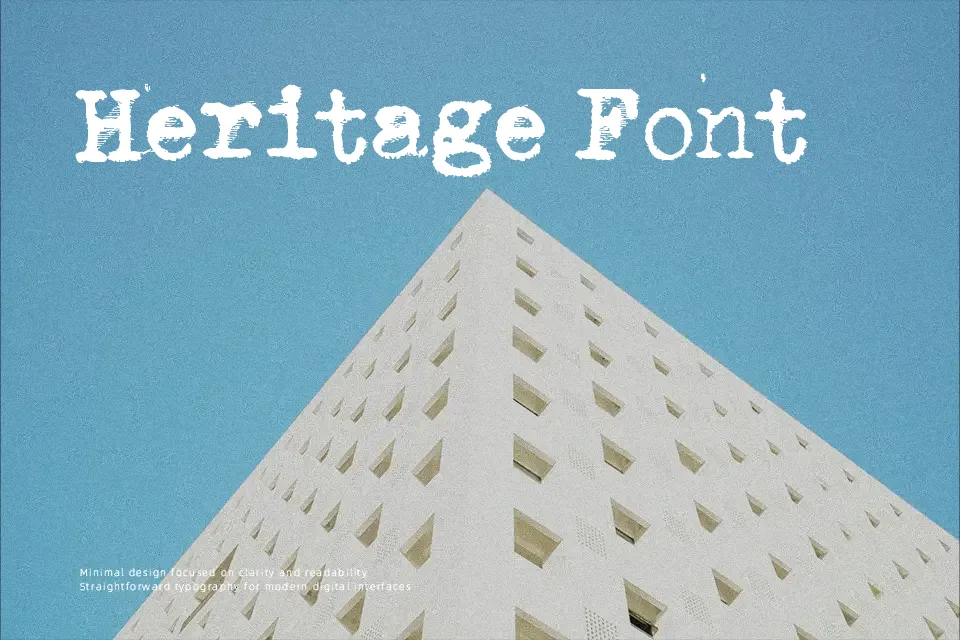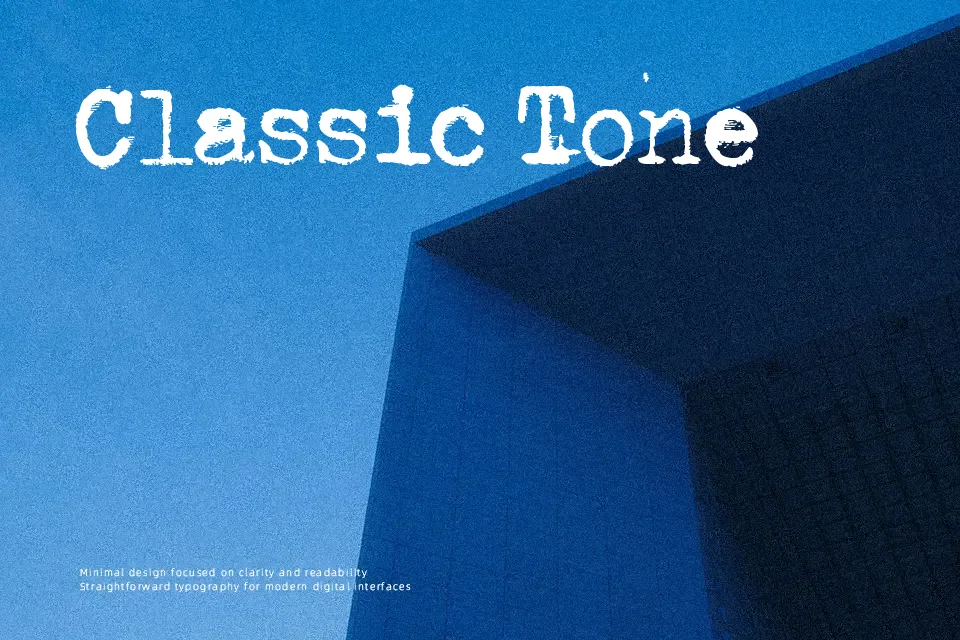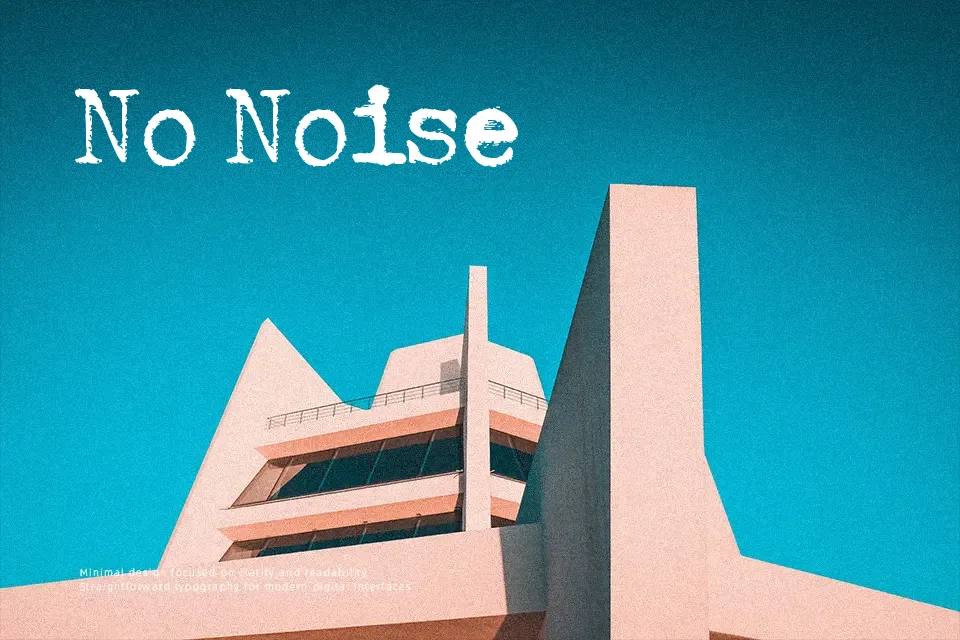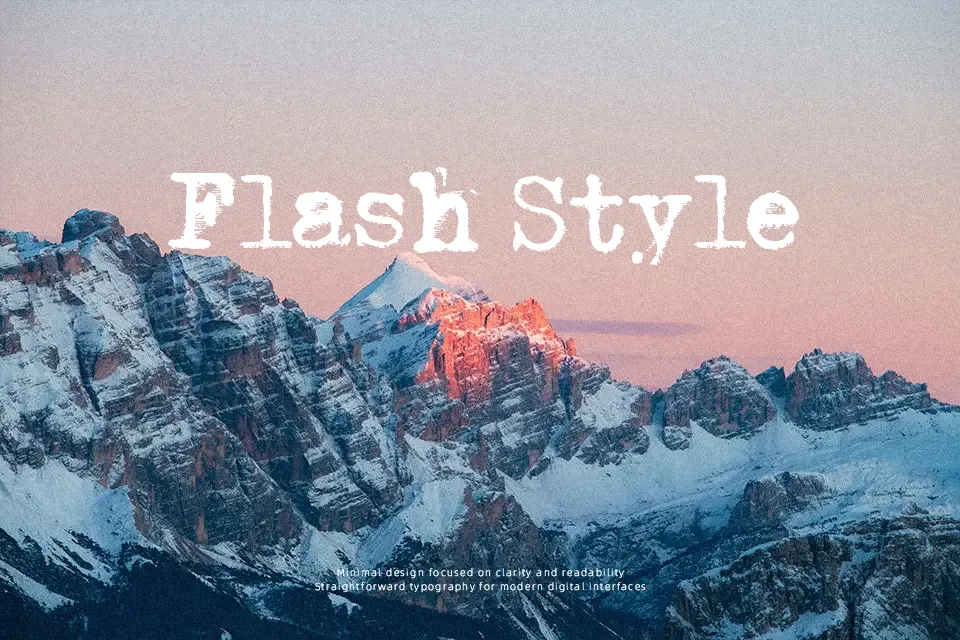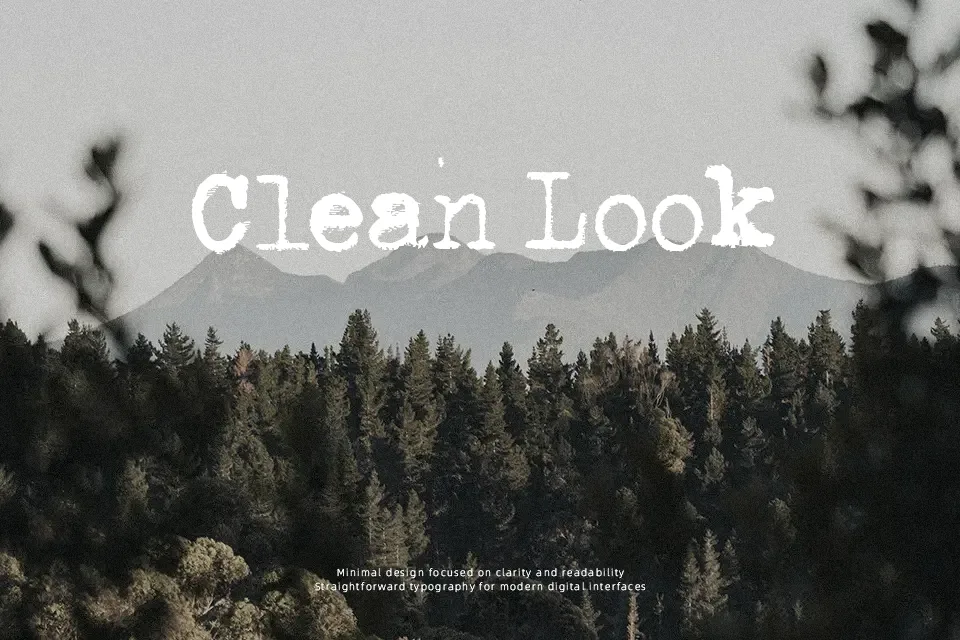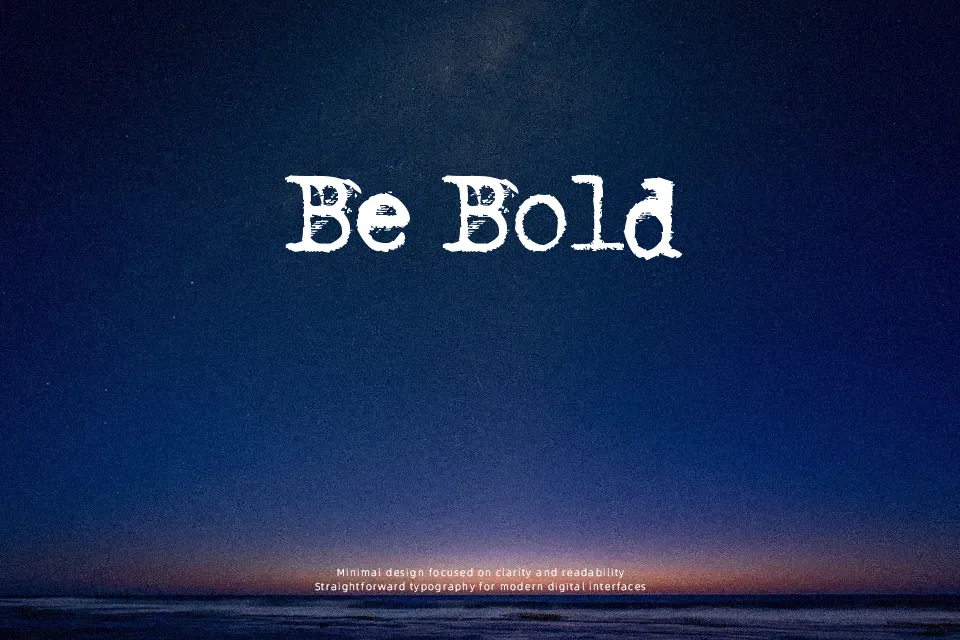
Through the night Font
Through the night Font showcases a distressed mechanical aesthetic characterized by worn slab serifs, irregular ink smudges, and gritty stroke edges. The design maintains relatively uniform monospaced proportions, pairing steady character widths with open letter spacing that prevents neighboring glyphs from colliding. While the heavy, uneven strokes establish commanding visual presence across thriller book titles, retro merchandise, and thematic music packaging, the degraded contours reduce clarity when rendered at smaller text sizes. In practice, the letterforms remain distinct and expressive in prominent headline settings, though dense blocks of continuous body text quickly become tiresome to decipher.
Best For: vintage book covers, retro zine headlines, mystery film posters, themed product packaging
Not Ideal For: dense paragraph text, mobile user interfaces, legal contracts, small technical labels
Perfect for branding, film, and headline, with a dark and display style.